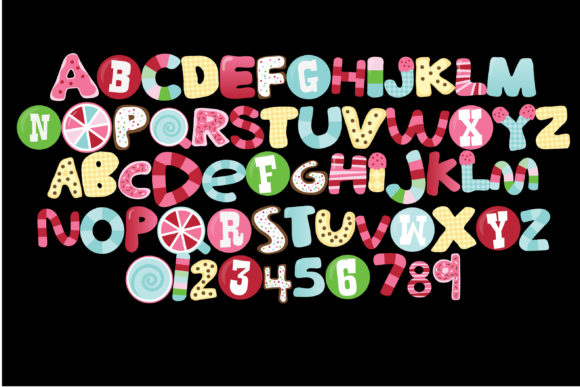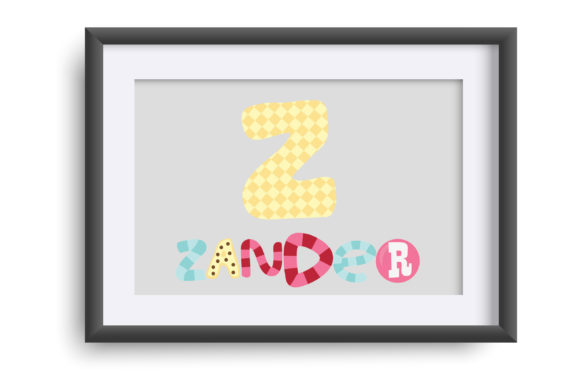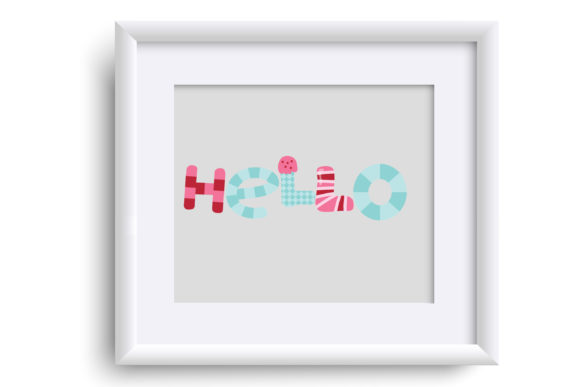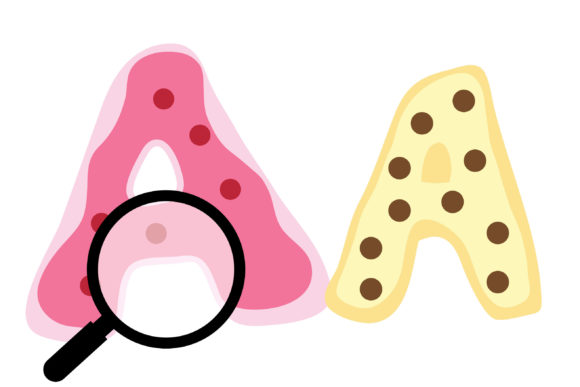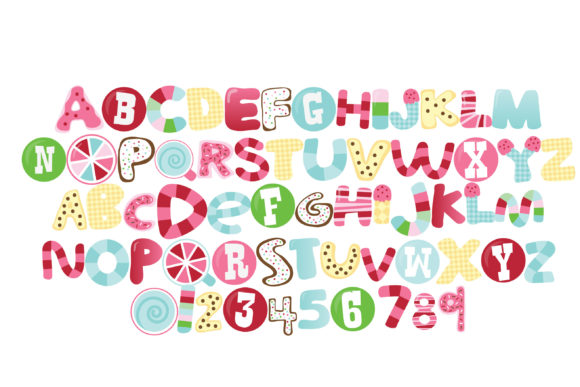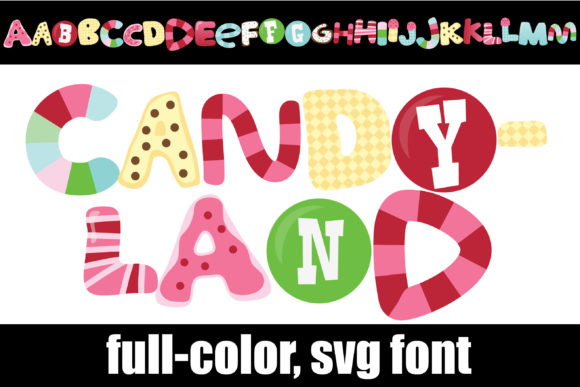
Candyland Font: A Sweet Addition to Your Design Collection
Are you looking for a font that adds a touch of joy and whimsy to your designs? Look no further than the Candyland Font! This full-color font features letters that resemble candies and sweets, making it perfect for a variety of creative projects. In this article, we’ll explore the features and benefits of the Candyland Font, as well as provide tips on how to use it in your designs.
What is the Candyland Font?
The Candyland Font is a unique and colorful font that features letters that look like candies and sweets. The font is a full-color Opentype-SVG file, which means it can be used in a variety of design programs, including PhotoShop, Illustrator, Silhouette, and Inkscape. The font is perfect for designers and crafters who want to add a touch of fun and whimsy to their creations.
What Can I Use the Candyland Font For?
The Candyland Font is a versatile font that can be used for a variety of creative projects. Here are a few ideas to get you started:
- Cartoon-related designs: The Candyland Font is perfect for creating cartoon-style designs, such as character logos, titles, and quotes.
- Children’s games: The font’s playful and colorful design makes it ideal for children’s games, such as puzzles, quizzes, and activity sheets.
- Quotes and titles: Add a touch of fun and whimsy to your quotes and titles with the Candyland Font.
- Brand names: Use the Candyland Font to create a unique and memorable brand name for your business or product.
- Book covers: The font’s colorful design makes it perfect for book covers, especially for children’s books.
- Posters: Create eye-catching posters with the Candyland Font, perfect for advertising events, products, or services.
Tips for Using the Candyland Font
Here are a few tips for using the Candyland Font in your designs:
- Experiment with different colors: The Candyland Font is a full-color font, so don’t be afraid to experiment with different colors and combinations.
- Use it with other fonts: The Candyland Font pairs well with other playful fonts, so try using it with a sans-serif font for a fun and modern look.
- Pay attention to font size: The Candyland Font is designed to be used at larger font sizes, so make sure to adjust the size accordingly.
The Candyland Font is a unique and colorful font that adds a touch of joy and whimsy to any design. With its versatility and compatibility with a range of design programs, it’s perfect for designers and crafters looking to create fun and playful designs. Whether you’re creating cartoon-related designs, children’s games, or book covers, the Candyland Font is a great choice. So why not give it a try and see how it can sweeten up your designs?